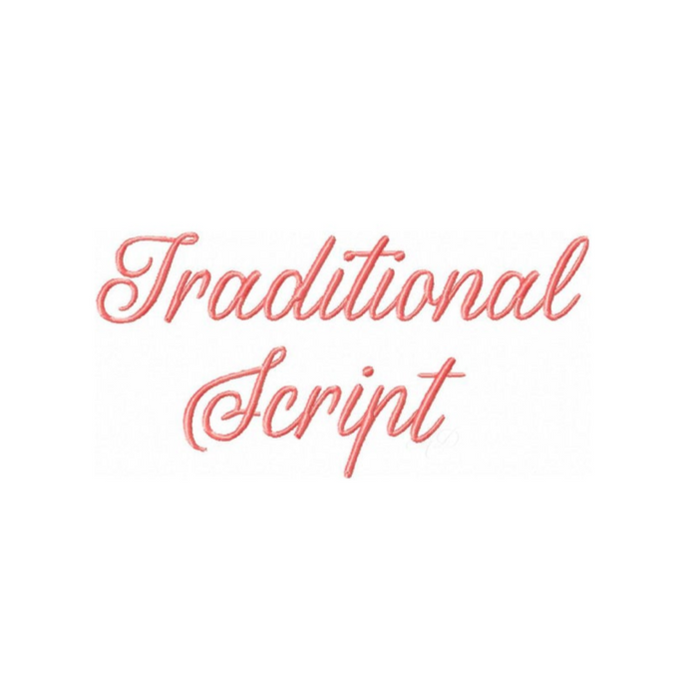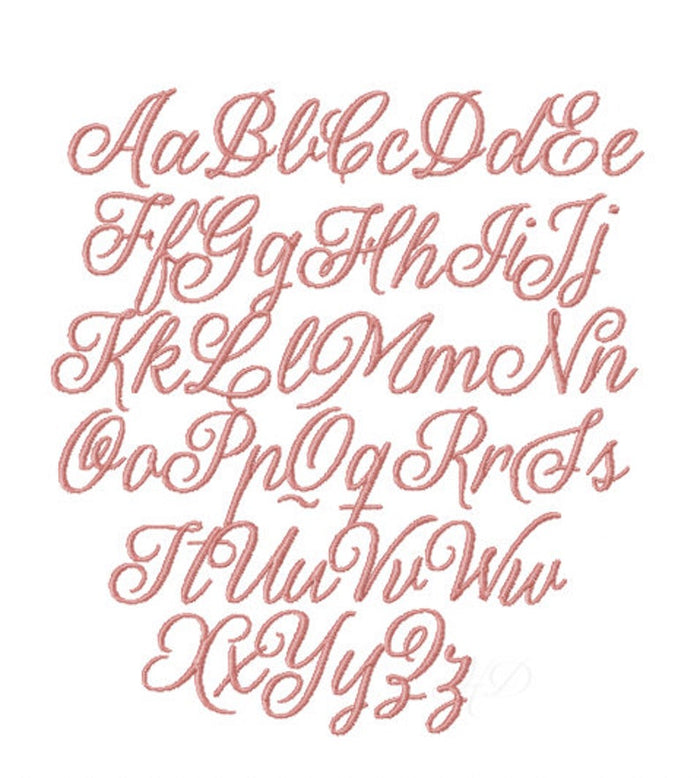
Traditional Script Embroidery Font
Introduce elegance to your embroidery projects with our Traditional Script Embroidery Font. This classic script font features satin stitching and comes in a discounted package that includes four sizes: 1", 1.5", 2", and 2.5". Each size offers both upper and lowercase letters, providing you with a complete set of 52 characters.